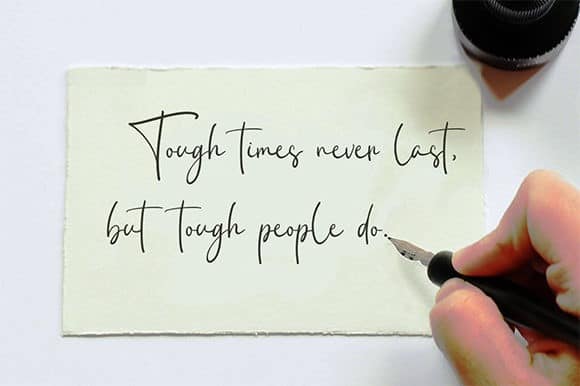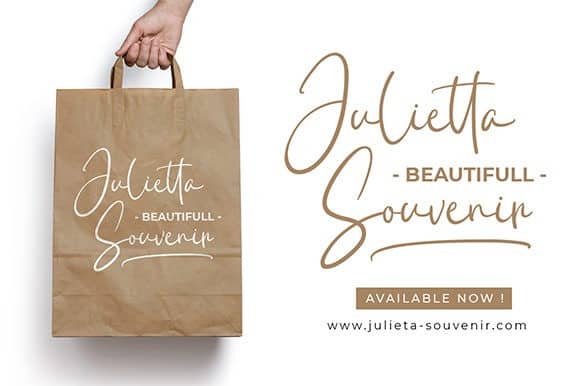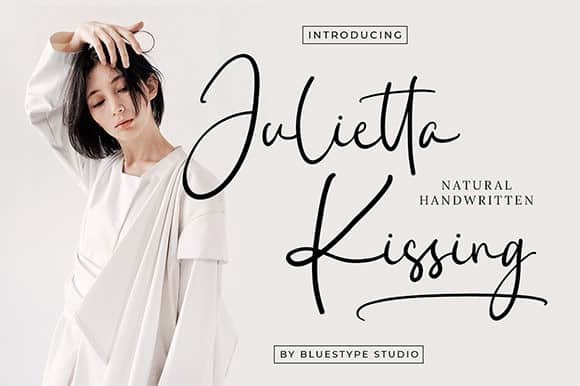
Julietta Kissing Script Font
Julietta Kissing Script Font is handwritten modern stylish fonts, combines from classic to modern typeface with an elegant baseline. This font is suitable for use on photography, business cards, weddings, t-shirt designs, logos, magazines, quotes, fashion, watermarks, invitations, signatures.